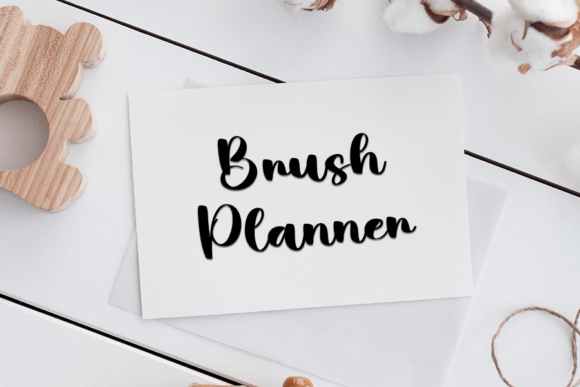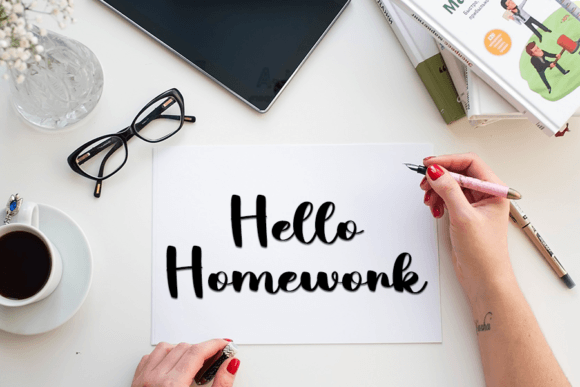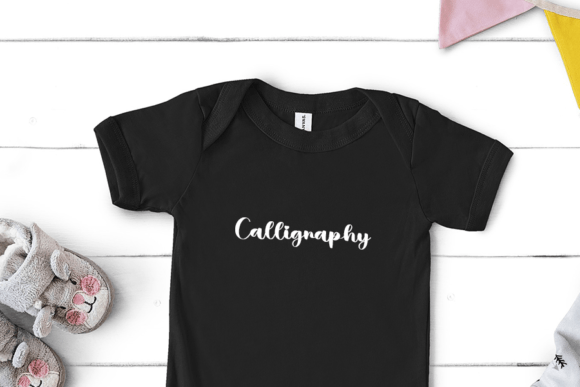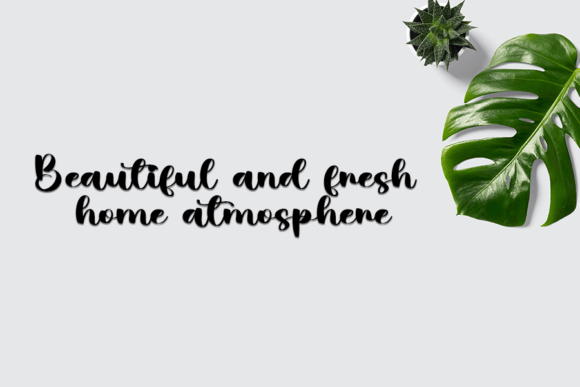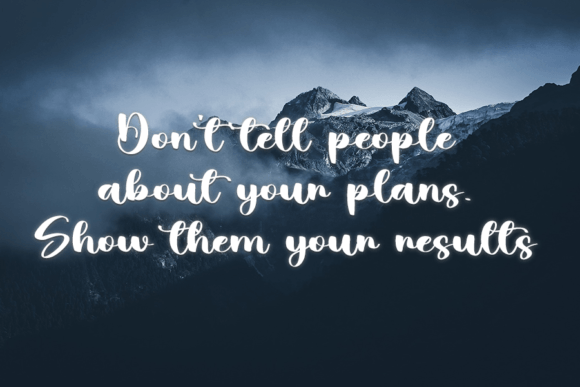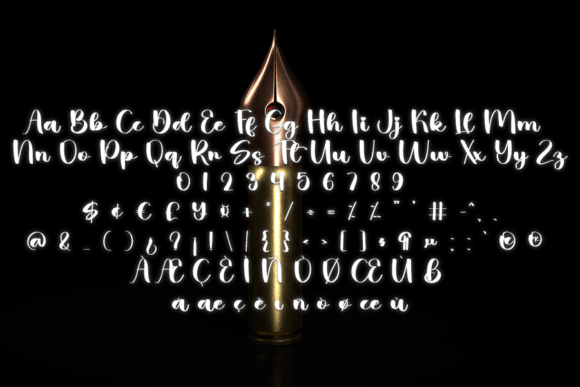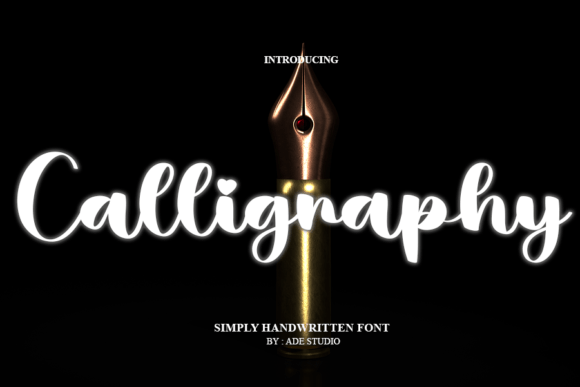
The Art of Calligraphy Fonts: Elevate Your Designs with Elegance and Sophistication
Calligraphy is a delicate handwritten font carefully crafted for a cool and unique design. This font can be used to write letters, invitations, food products, titles, and more. In this article, we’ll explore the world of calligraphy fonts, their characteristics, and how to effectively use them in your designs.
What is a Calligraphy Font?
A calligraphy font is a type of font that mimics the look of traditional calligraphy, an art form that involves decorative handwriting with a brush or a nib. Calligraphy fonts are designed to replicate the flowing, cursive strokes and elegant letterforms of hand-written calligraphy. These fonts are perfect for adding a touch of sophistication and elegance to your designs.
Characteristics of Calligraphy Fonts
Calligraphy fonts have several distinct characteristics that set them apart from other font styles. Some of the key features of calligraphy fonts include:
- Flowing connections: Calligraphy fonts often feature connected letters, which create a sense of fluidity and movement.
- Elegant letterforms: Calligraphy fonts are designed to mimic the beautiful, cursive letterforms of traditional calligraphy.
- Variations in line width: Calligraphy fonts often feature varying line widths, which add to their organic and hand-crafted feel.
- Ornate details: Many calligraphy fonts include ornate details, such as flourishes and swashes, which add to their elegance and sophistication.
Uses of Calligraphy Fonts
Calligraphy fonts are versatile and can be used in a variety of design projects, including:
- Wedding invitations: Calligraphy fonts are a popular choice for wedding invitations, as they add a touch of romance and elegance.
- Logos and branding: Calligraphy fonts can be used to create unique and memorable logos and branding materials.
- Packaging design: Calligraphy fonts can add a touch of sophistication to food packaging, cosmetics, and other luxury products.
- Signage and display: Calligraphy fonts can be used to create eye-catching signage and display materials, such as titles and headings.
Tips for Using Calligraphy Fonts
Here are some tips for effectively using calligraphy fonts in your designs:
- Choose the right font: With so many calligraphy fonts available, choose one that fits your design style and project requirements.
- Use it sparingly: Calligraphy fonts can be ornate and overwhelming, so use them sparingly to avoid overwhelming your design.
- Pair it with simple fonts: Pair calligraphy fonts with simple, clean fonts to create visual contrast and hierarchy.
- Experiment with colors and textures: Calligraphy fonts can be enhanced with colors and textures, so experiment with different effects to add depth and interest.
Popular Calligraphy Fonts
Here are some popular calligraphy fonts that you can use in your designs:
- Pacifico: A beautiful, modern calligraphy font with flowing connections and elegant letterforms.
- Great Vibes: A script calligraphy font with a fun and playful feel.
- Lobster: A classic calligraphy font with ornate details and a sophisticated feel.
- Alex Brush: A lovely, handwritten calligraphy font with a personal and elegant feel.
Calligraphy fonts are a beautiful and elegant way to add sophistication and style to your designs. With their flowing connections, elegant letterforms, and ornate details, calligraphy fonts are perfect for a variety of design projects, from wedding invitations to packaging design. By choosing the right font, using it sparingly, and pairing it with simple fonts, you can effectively use calligraphy fonts to elevate your designs and create a lasting impression.